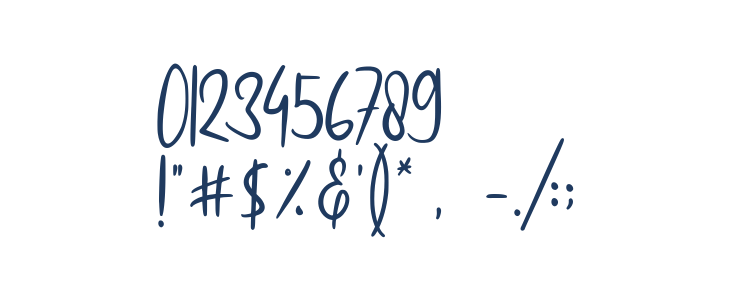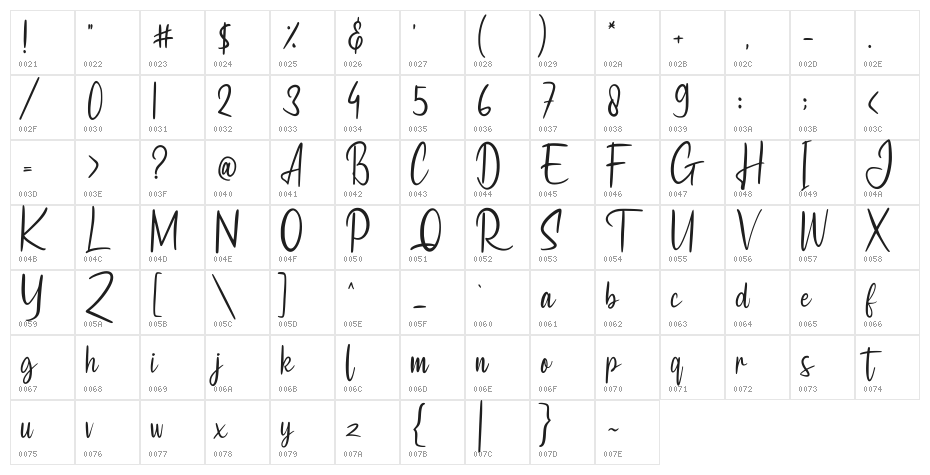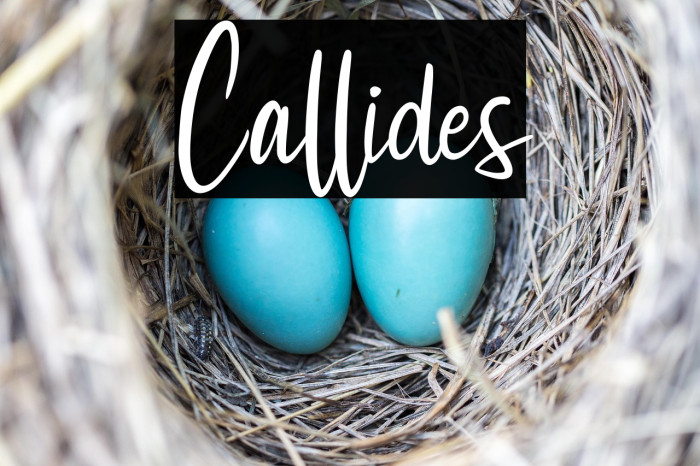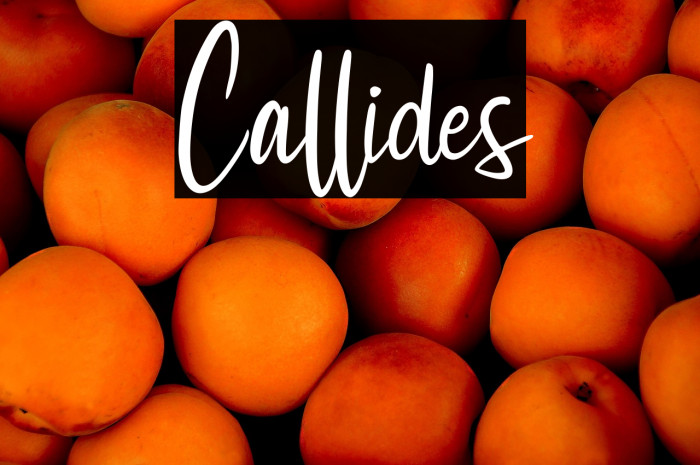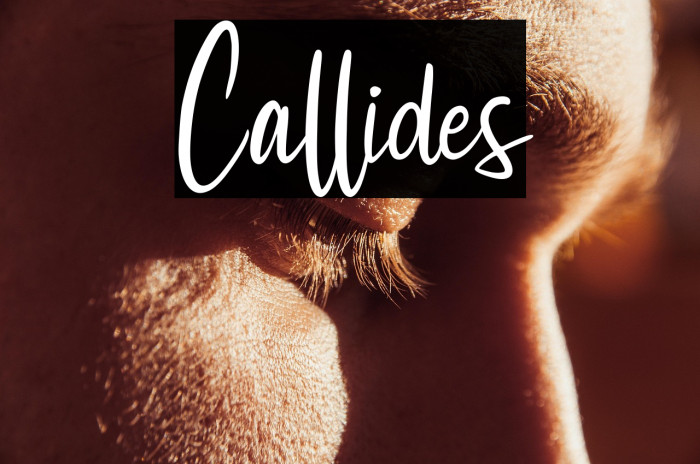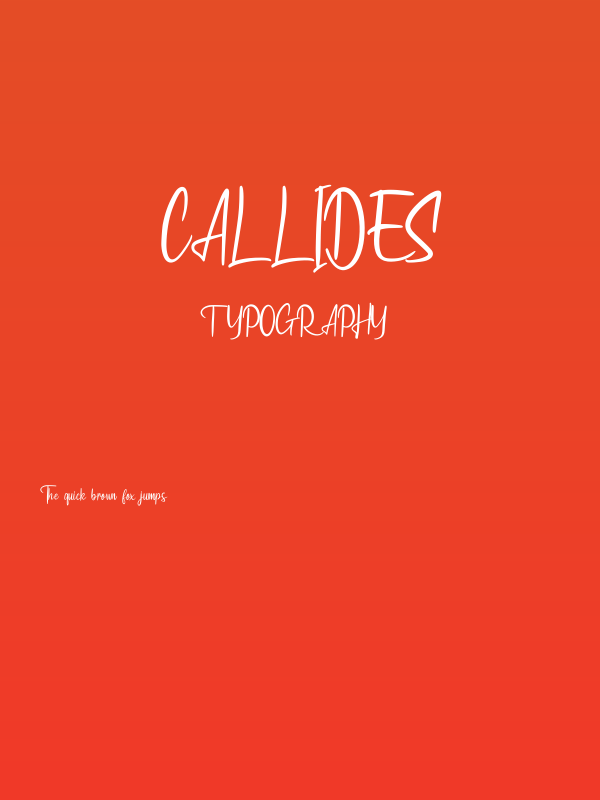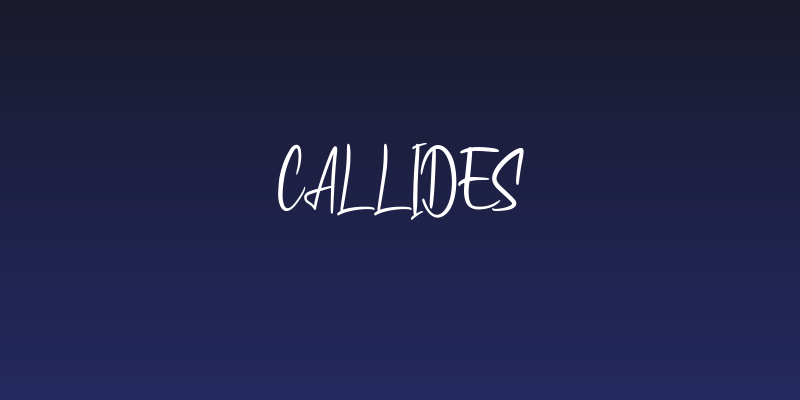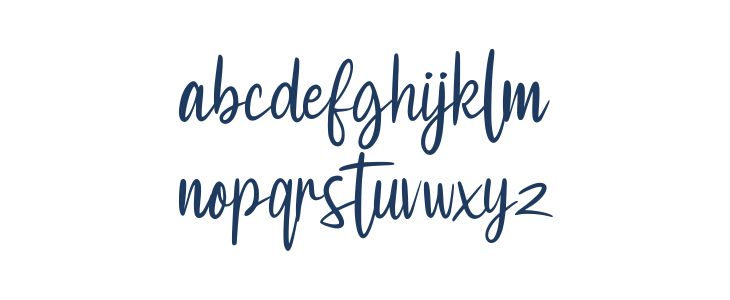
Callides Font
Callides Description
This font features a lively and dynamic handwritten style, characterized by its fluid and expressive strokes. The uppercase letters are tall and slightly narrow, with a playful tilt that adds a sense of movement. The lowercase letters maintain a consistent flow, with some characters extending below the baseline, enhancing the casual and informal feel. Numbers are bold and slightly rounded, complementing the overall aesthetic. Special characters are creatively integrated, maintaining the font's energetic and whimsical nature. This font is perfect for projects that require a personal touch and a sense of creativity.